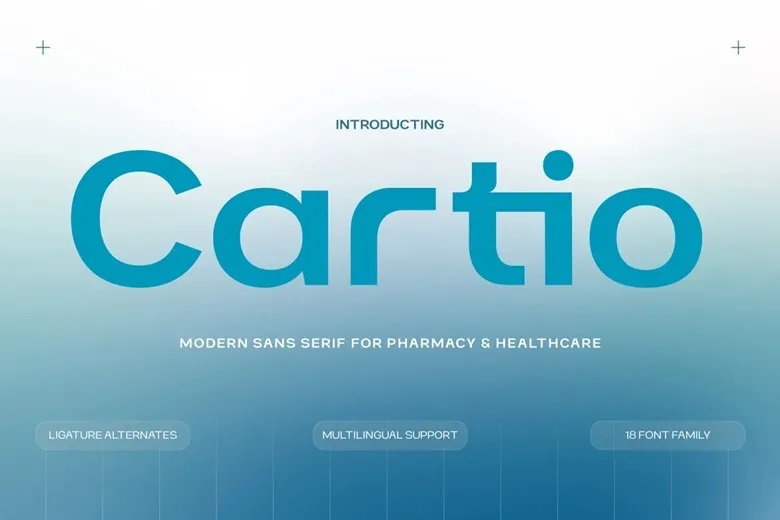
Cartio Font
Cartio is a modern sans-serif font that gives pharmacy and healthcare brands a clean, professional look. Its simple shapes and balanced design help create a sense of trust and polish.
Cartio’s elegant, easy-to-read style helps brands appear reliable and clear in both digital and print materials. It works well for pharmacy branding, healthcare websites, medical packaging and presentations.
Cartio Sans Serif Font